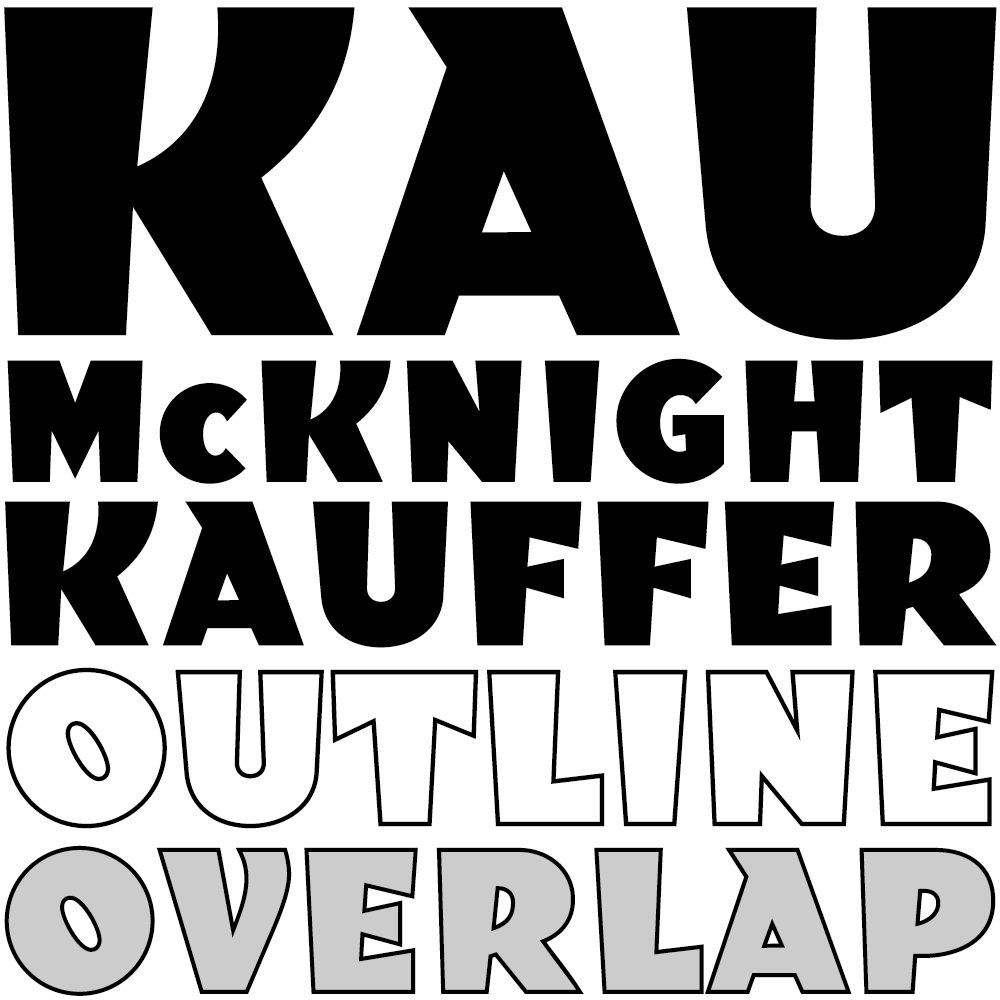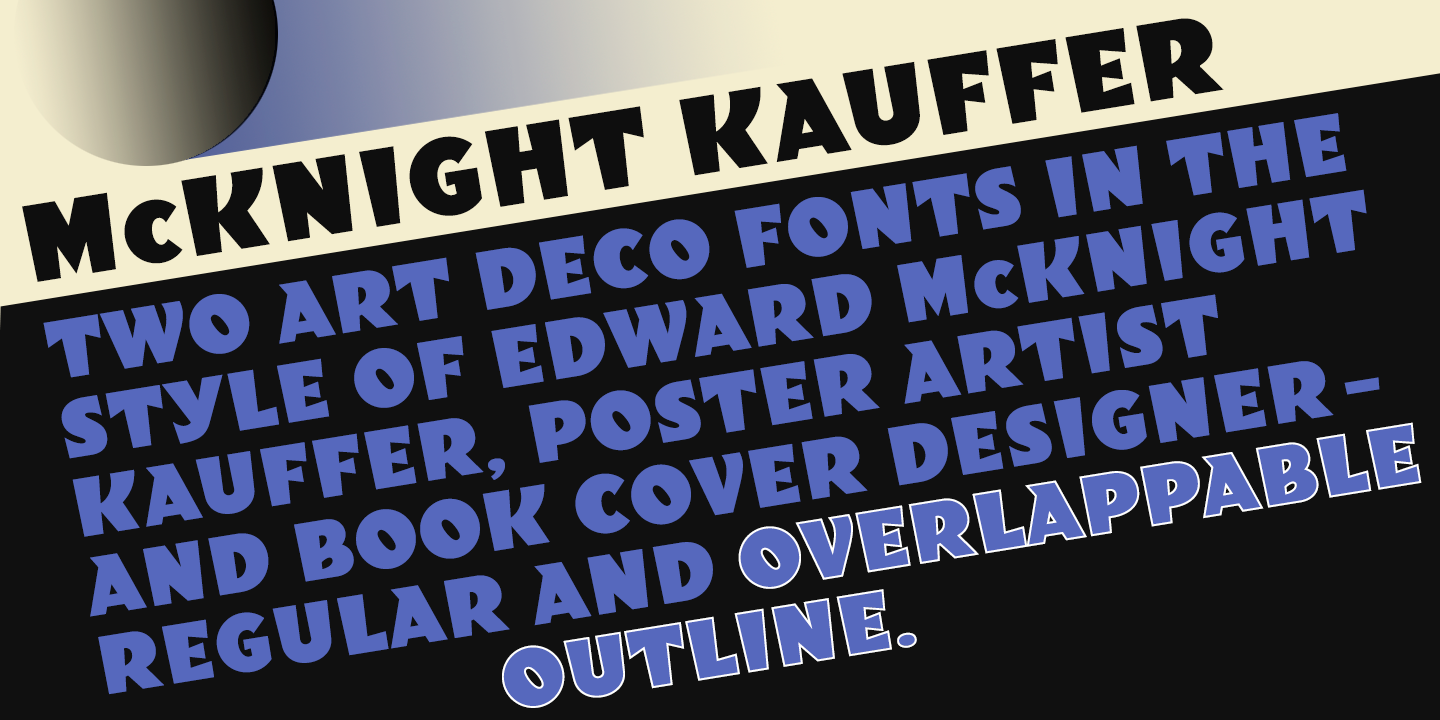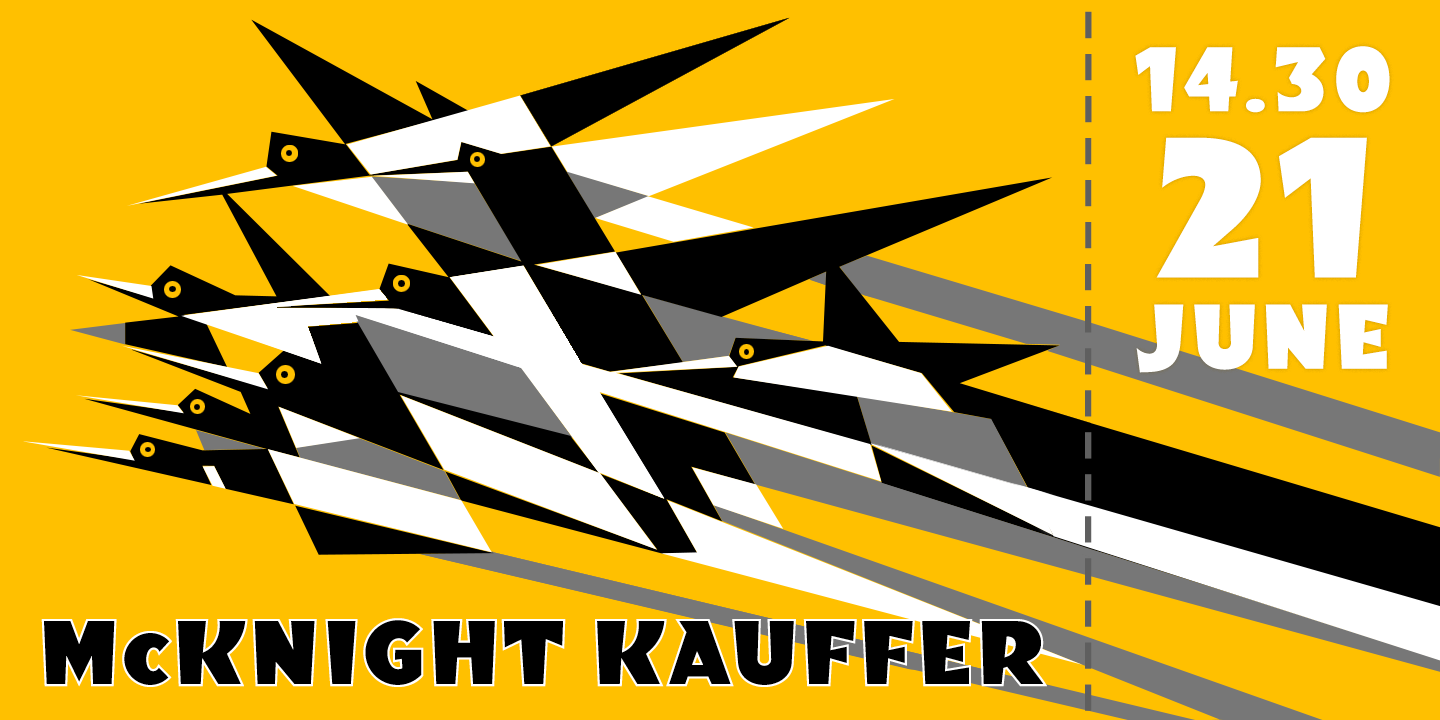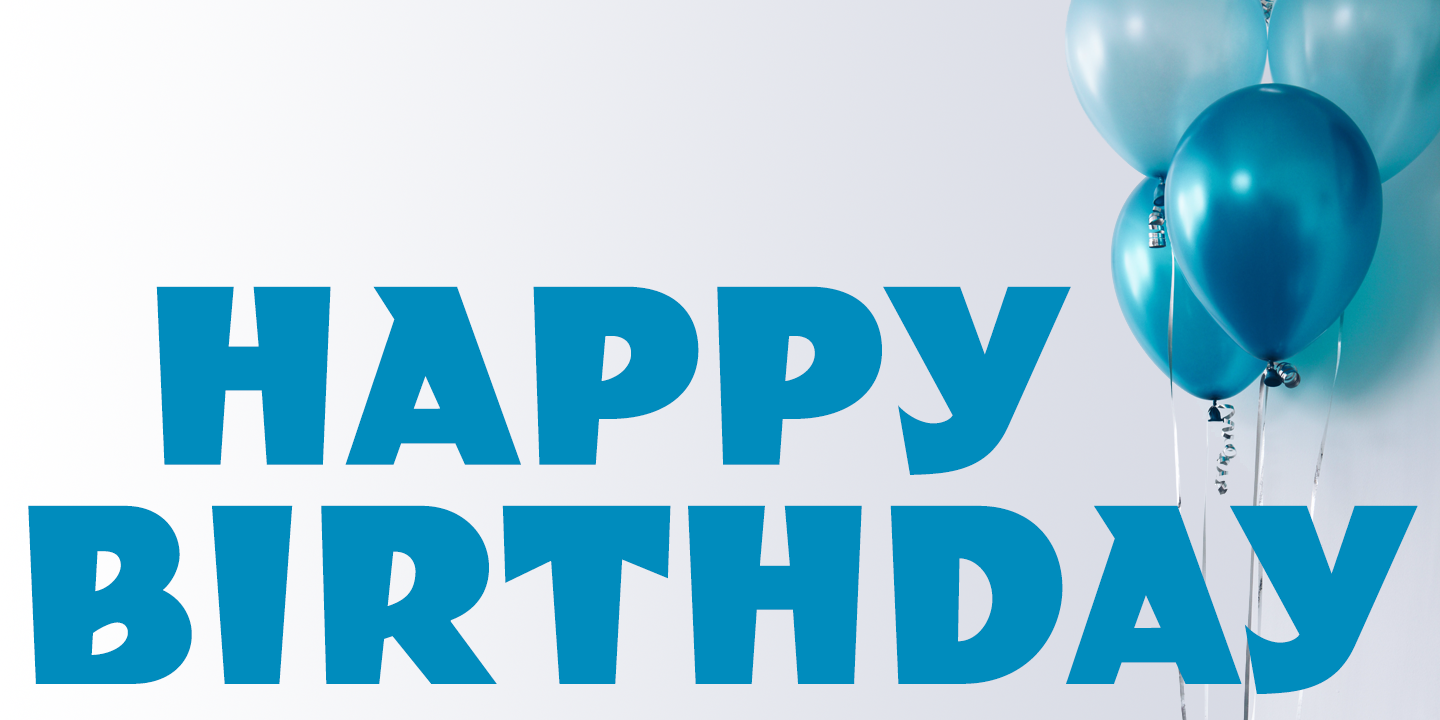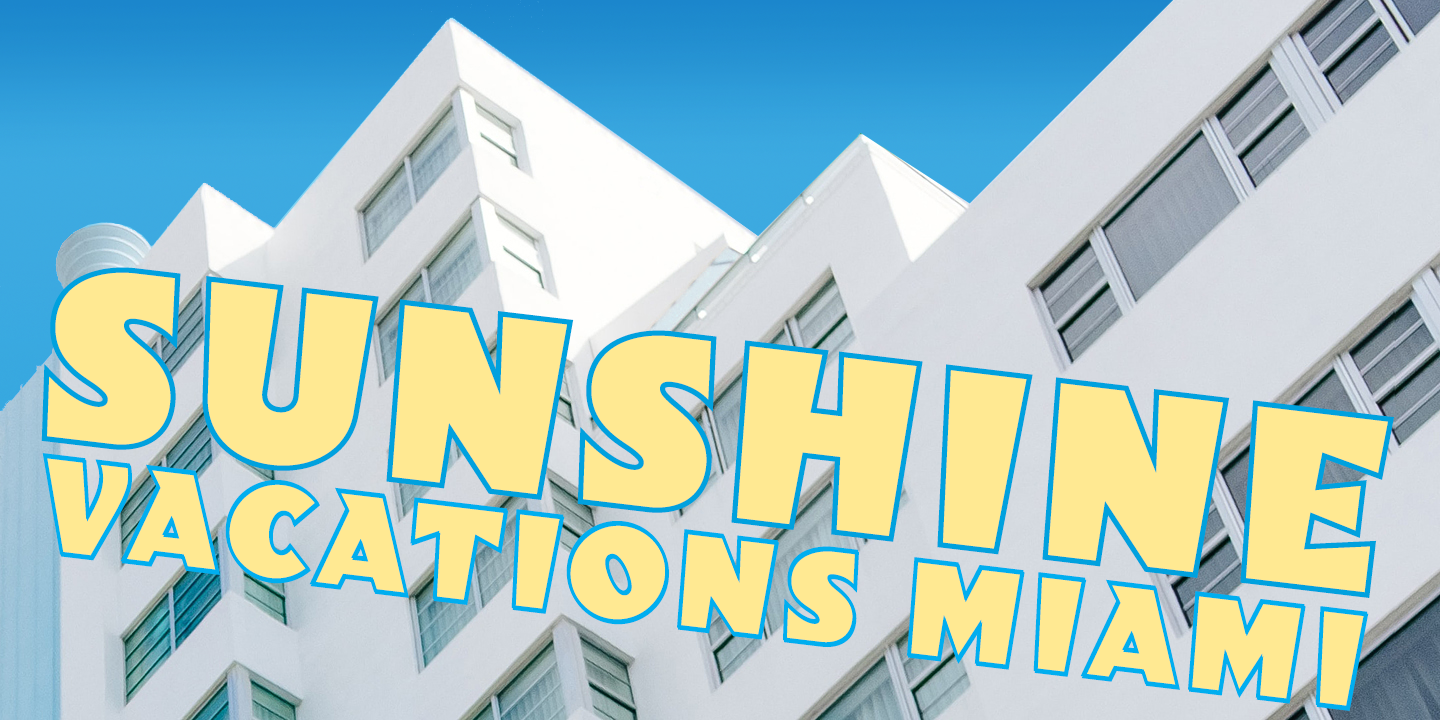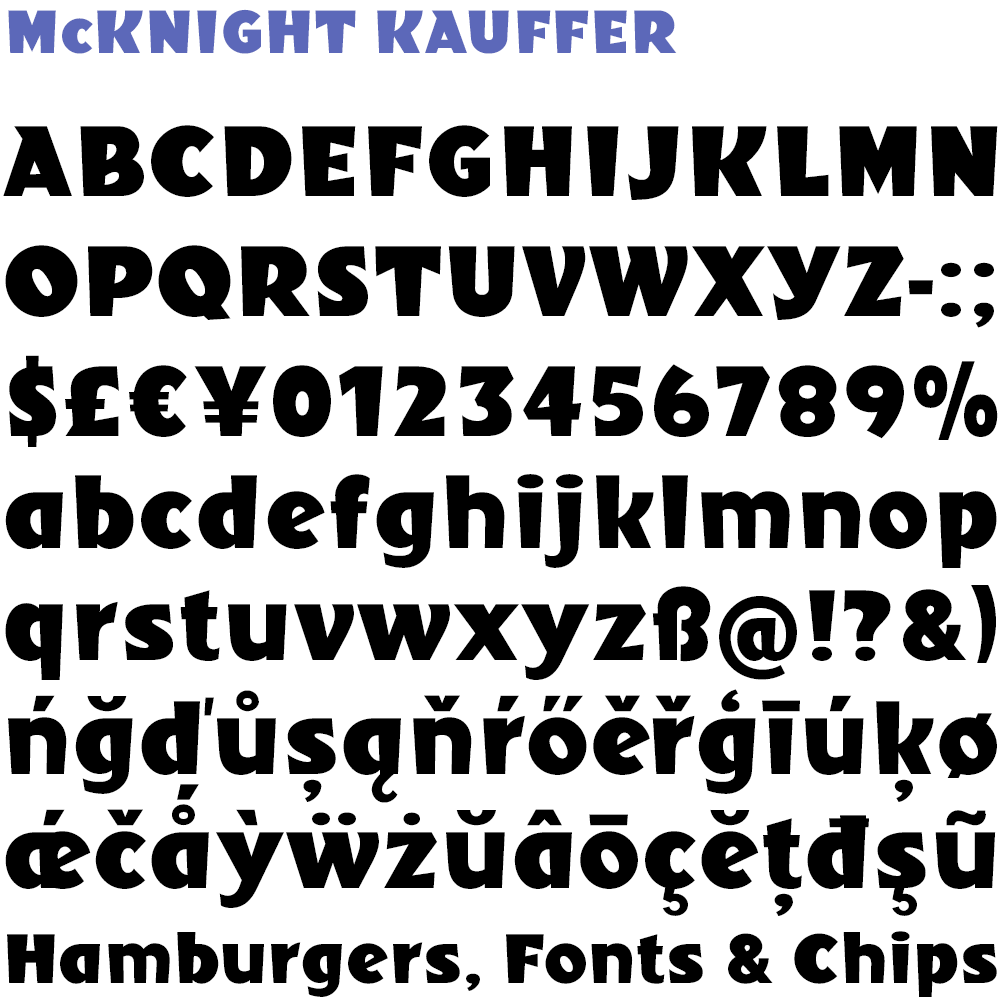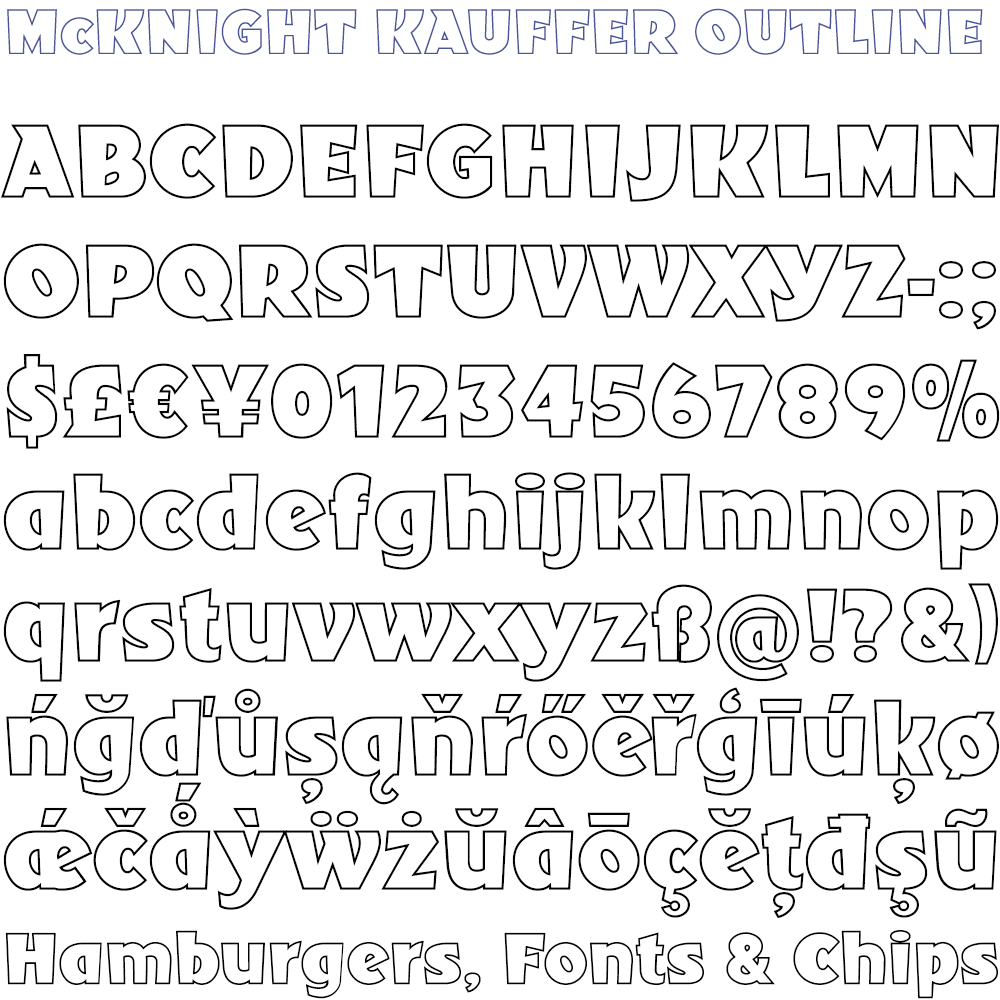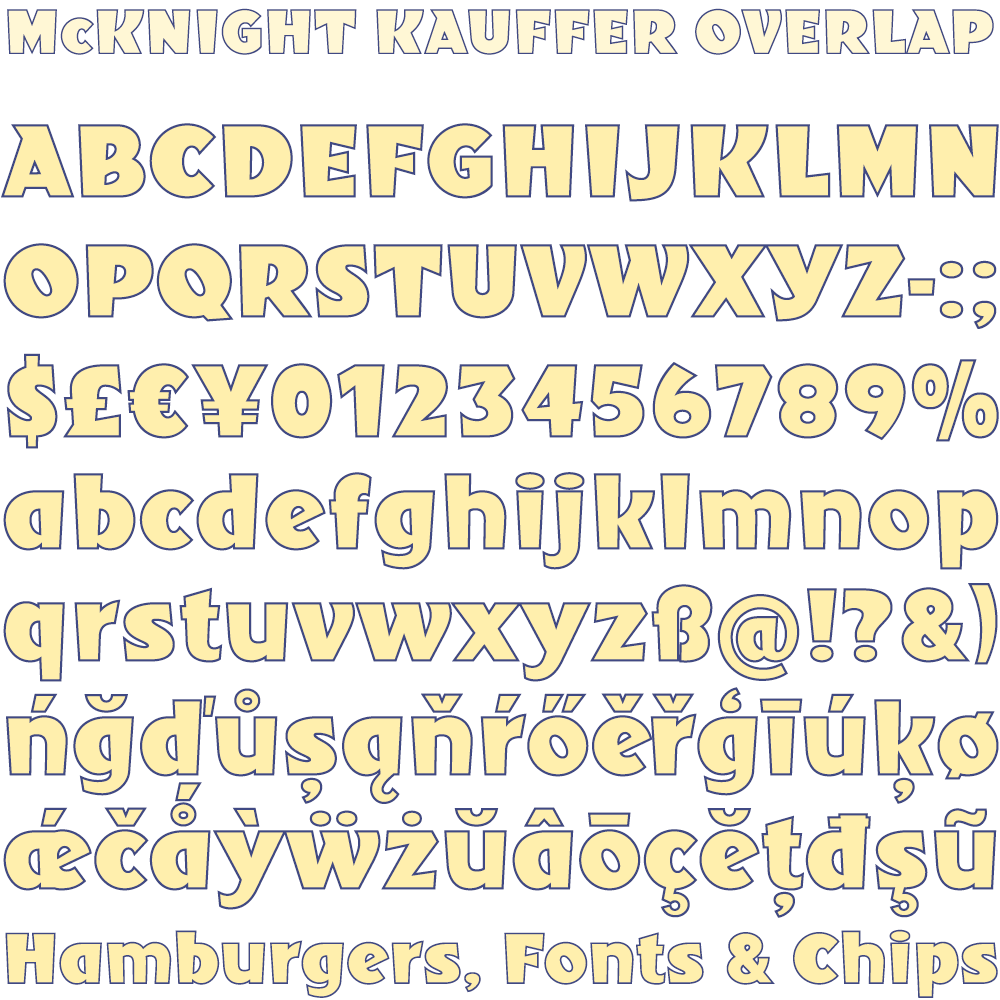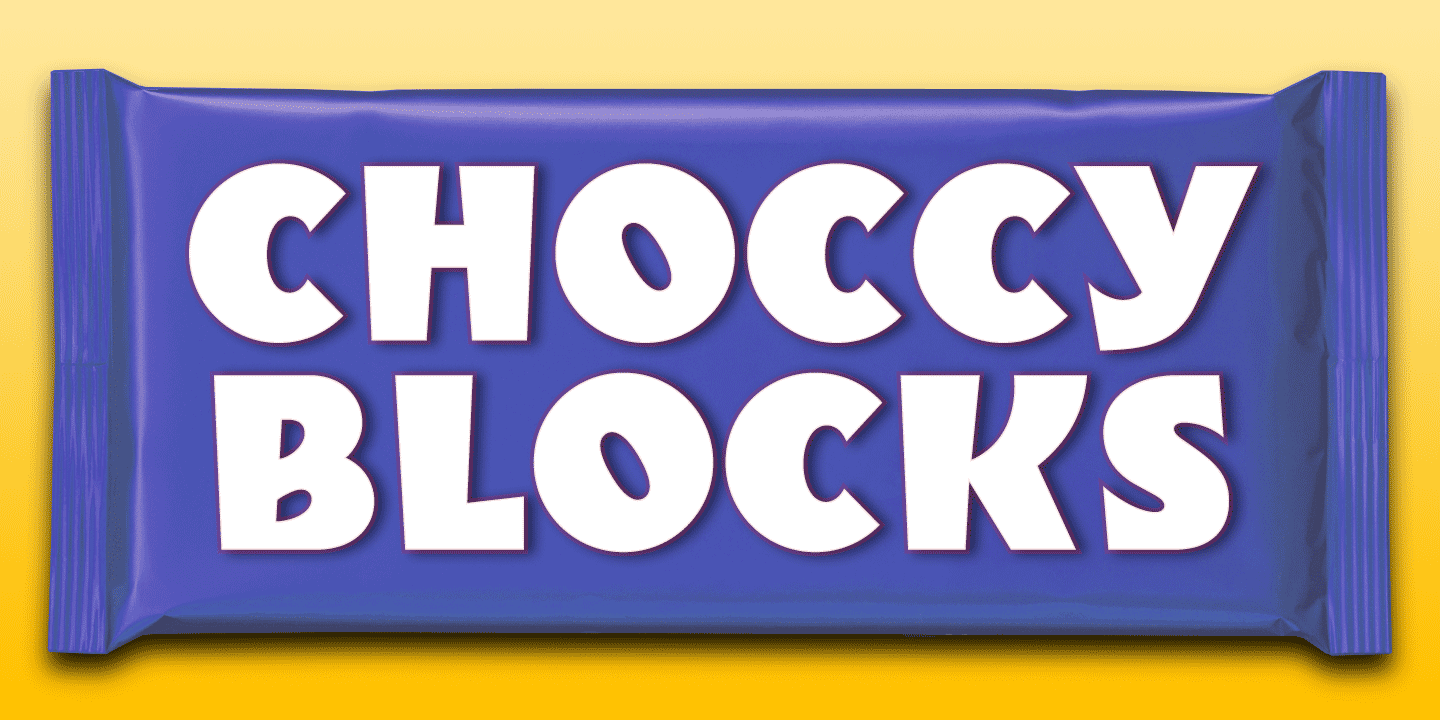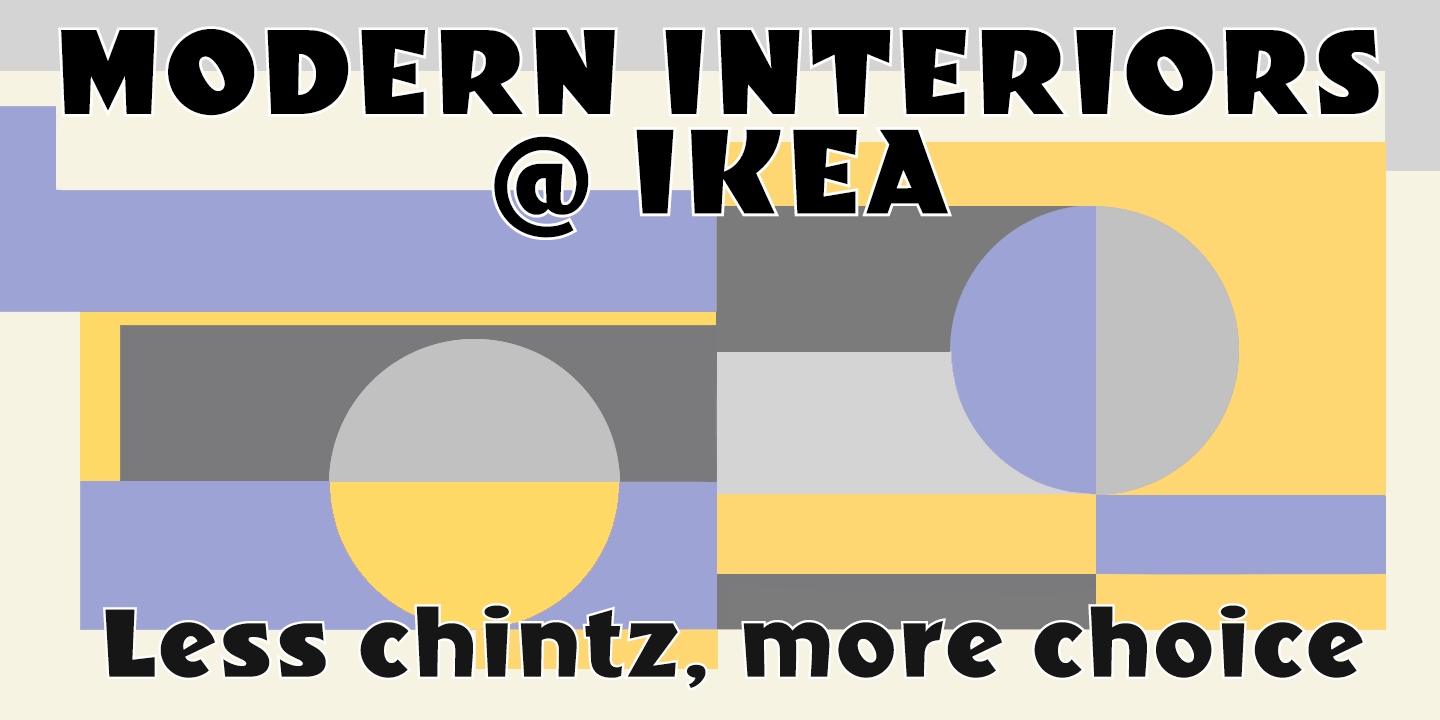
McKnight Kauffer
McKnight Kauffer is a casual sans derived from poster and book cover lettering by the American designer, Edward McKnight Kauffer, who mainly worked in England through the 1920s and 1930s. The style owes much to Louis Oppenheim’s Fanfare of 1927, but without the Germanic blackletter inflection.
The two display fonts, regular and outline, have a playful art deco feel, and share spacing and kerning so can be overlapped for bicolor effects. Both fonts are included in the licensed download, and the regular font is available free for personal use.